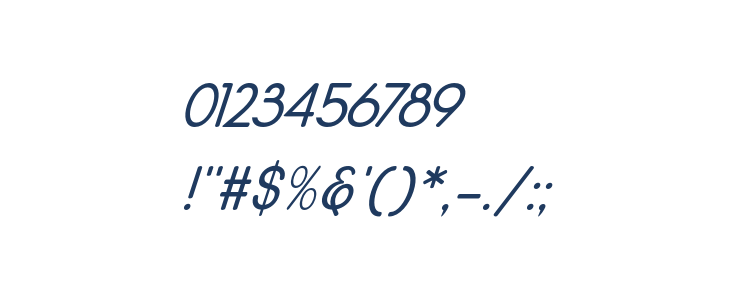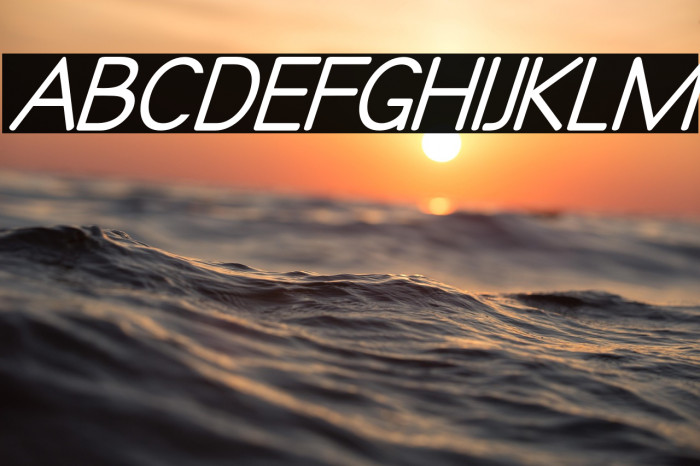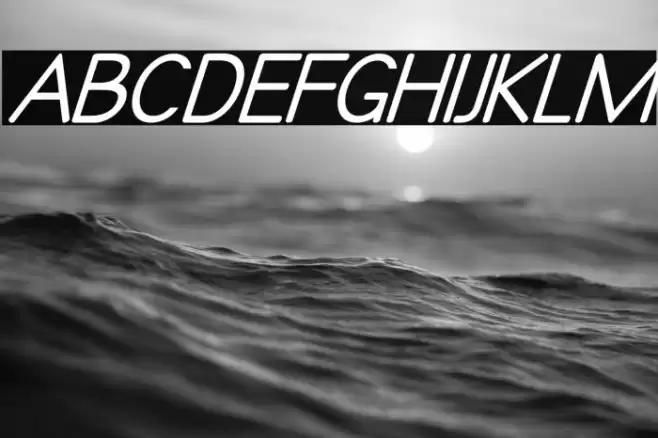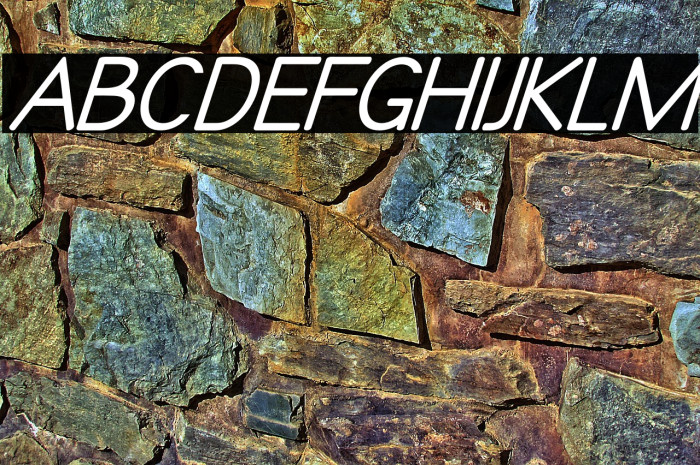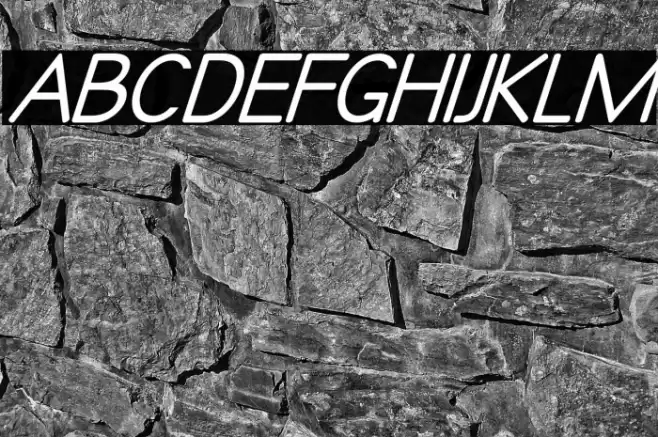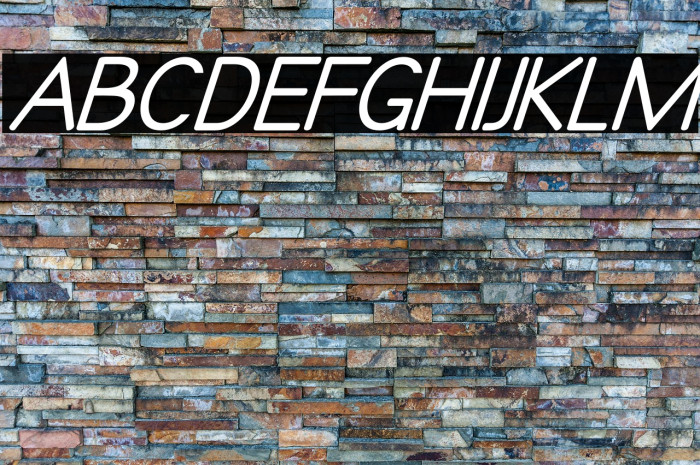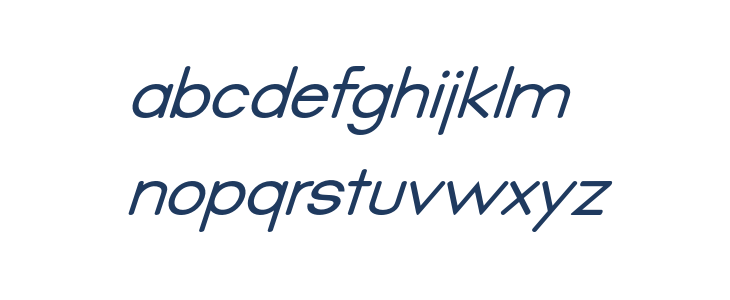
Qualioitalic Font
Qualioitalic Description
This font features a sleek, modern design with a distinct italic slant, giving it a dynamic and forward-moving appearance. The characters are crafted with smooth, clean lines and a uniform stroke width, contributing to its contemporary aesthetic. The uppercase and lowercase letters maintain a consistent style, with rounded edges that soften the overall look. The numerals are clear and legible, matching the style of the alphabetic characters. Special characters are included, maintaining the same elegant and cohesive design. The font's spacing is well-balanced, ensuring readability while retaining its stylish flair.
| Proposed Projects | Ideal for branding, advertising, and editorial design projects where a modern and stylish look is desired. |